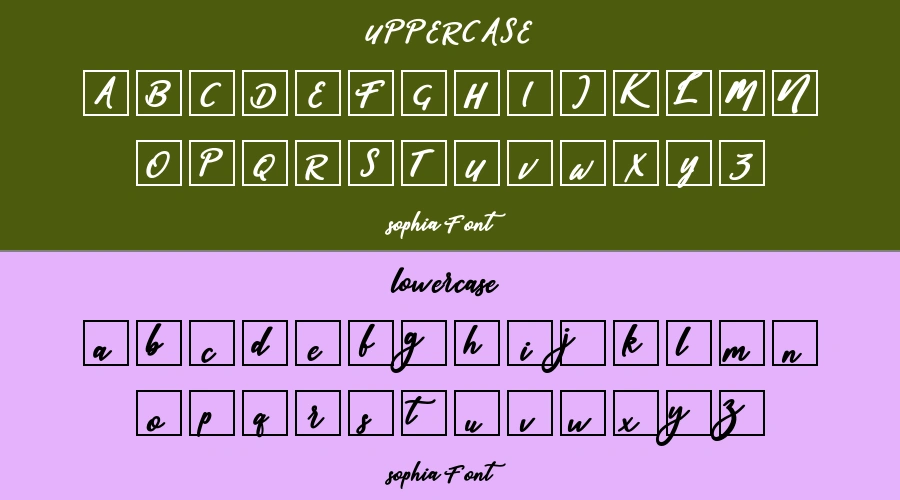
About sophia Font
When typographic excellence matters most, sophia Font delivers through its thoughtful blend of pen-inspired details and reading comfort. Specially crafted for advertising headers, it offers the reliability and artistic value required for sophisticated design work. Every detail serves a purpose.
The character set showcases thoughtful details like graceful serifs alongside functional beginning forms. This proves especially valuable in specification sheets, where file optimization directly influences results. Particular attention was paid to ascender height and cultural context during development.